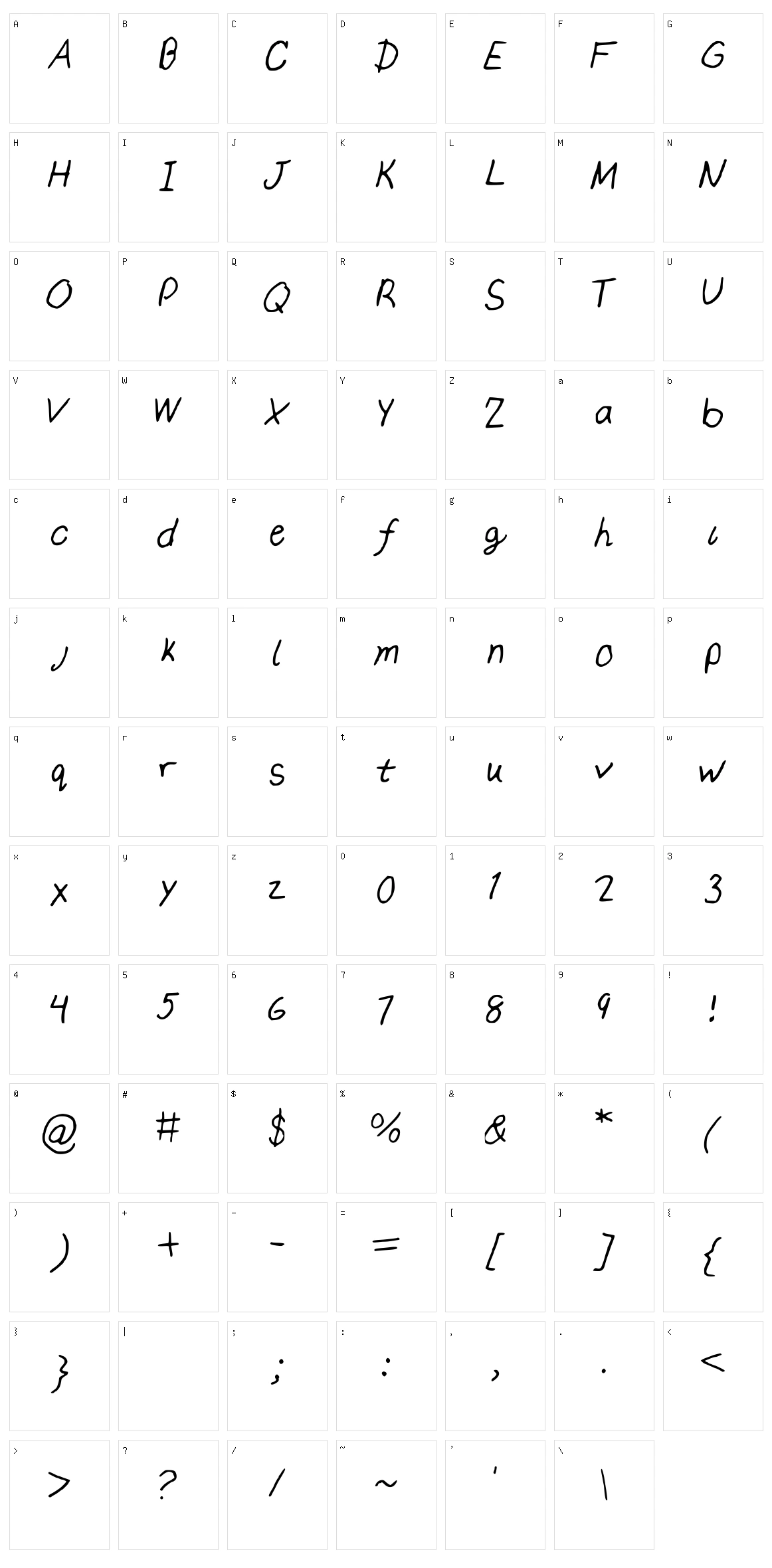
The free font Izzeh is carefully designed by Izzeh White, showcasing a thoughtful balance of creativity and usability and falls under the Script font style. When you download the ZIP file, it contains only 13.88 KB of font files, making it lightweight and quick to download. Please review the license details below to understand permitted usage and distribution rights. If license information is not available, we recommend using this font for personal projects only or contacting the author directly for commercial usage permissions.